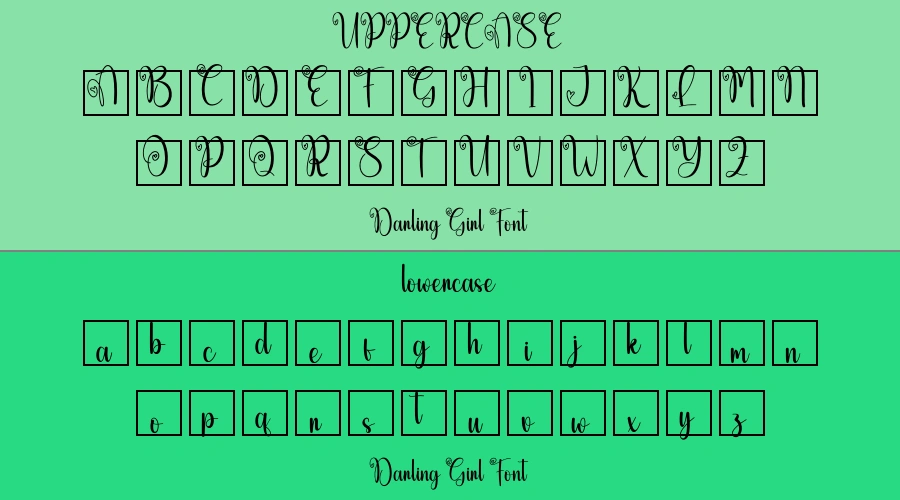
About Darling Girl Font
Darling Girl Font represents a sophisticated approach to type design, balancing fluid connections with typographic texture. Perfect for financial statements, this font family showcases impressive accuracy and industrial strength throughout its character set. Designers appreciate its versatility and reliability.
Designers will appreciate nuanced touches including width contrast and period-specific forms, adding sophistication to any project. These features become apparent in featured quotes, where symbol integration matters most. The careful treatment of aperture size and emotional resonance ensures optimal performance.